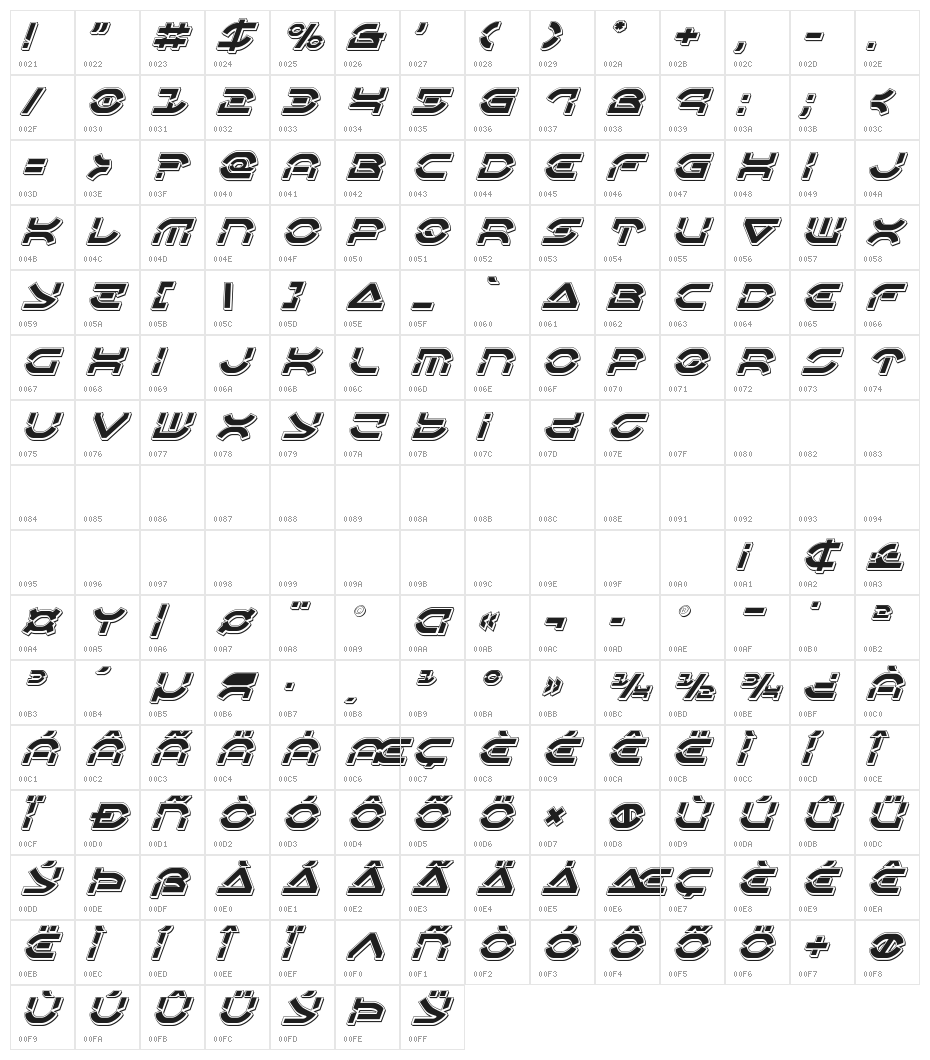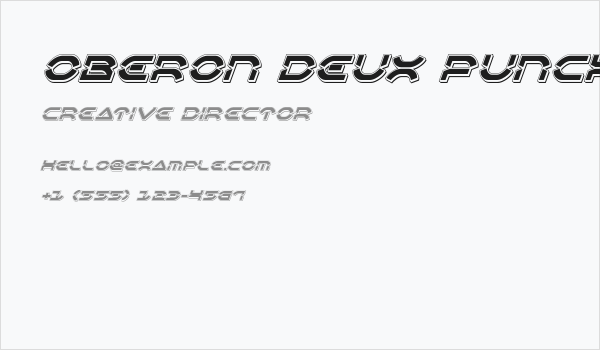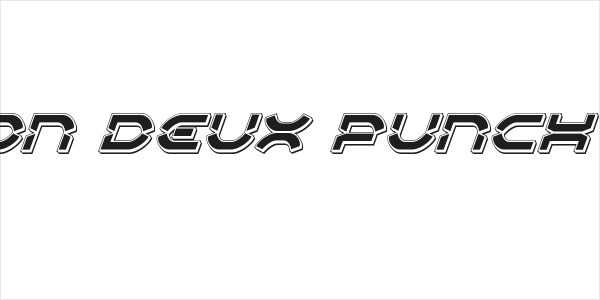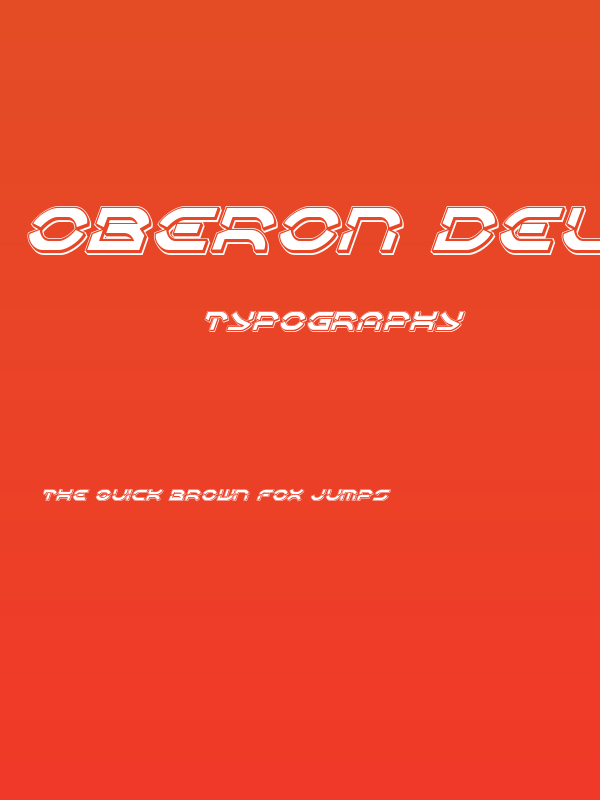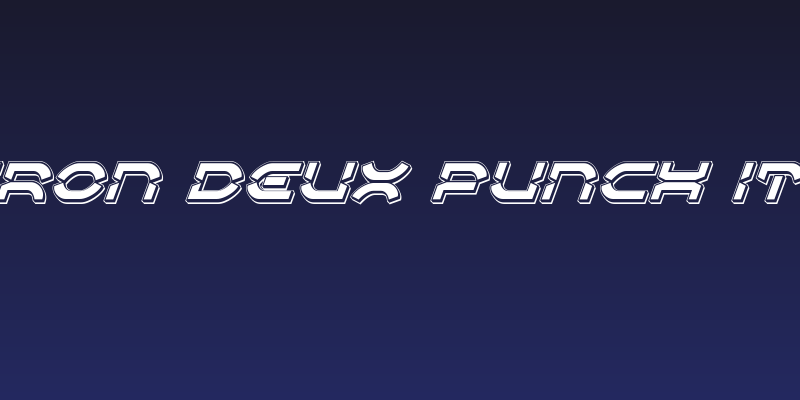
Oberon Deux Punch Italic Font
Oberon Deux Punch Italic Description
This font features a bold, futuristic design with a distinct three-dimensional effect. Each character is outlined with a thick border, creating a layered appearance that adds depth and visual interest. The italicized style gives it a dynamic and forward-moving feel, making it ideal for projects that require a modern and edgy look. The characters are uniformly spaced, ensuring readability while maintaining a unique aesthetic. The font includes a full set of uppercase and lowercase letters, numbers, and a variety of special characters, making it versatile for various design needs.